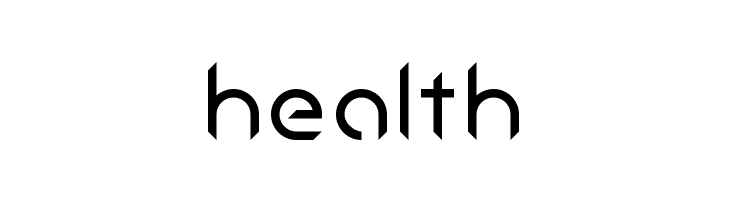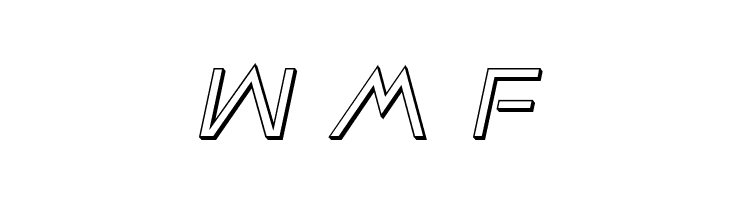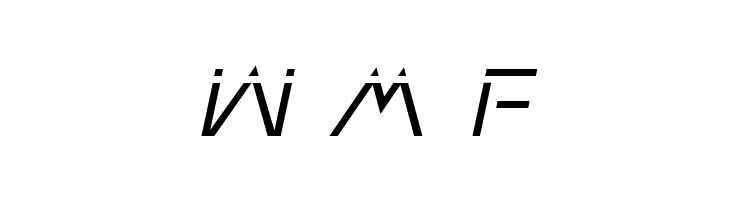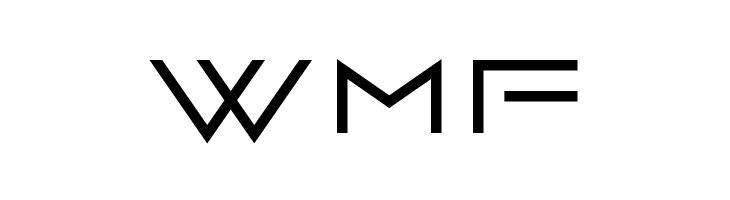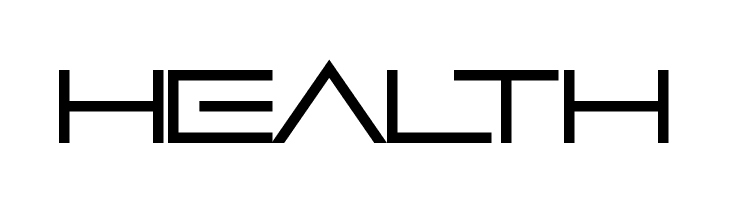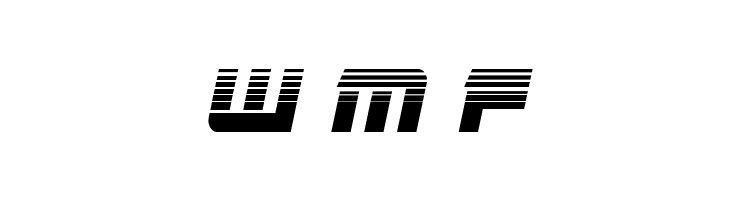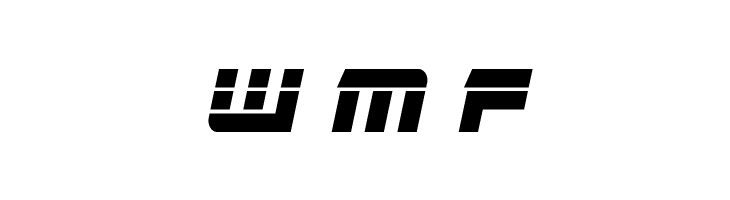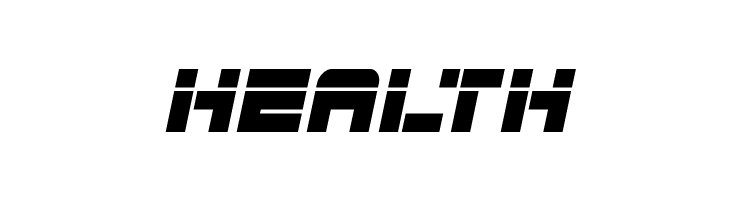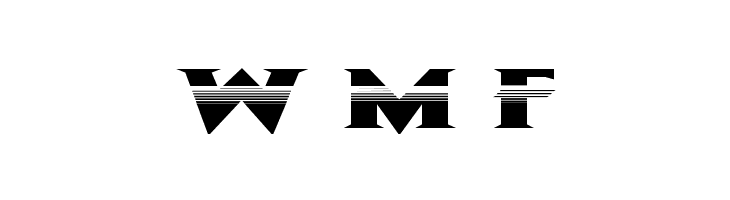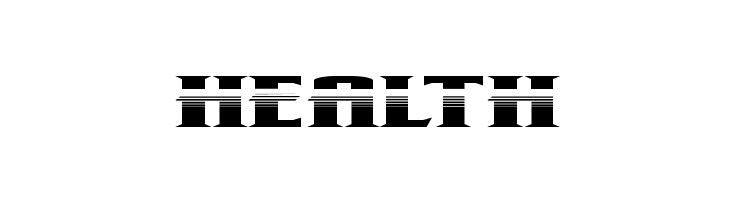
A futuristic and geometric font with sharp angles and clean lines.
A futuristic, italicized 3D font with a sleek, outlined design.
A futuristic, italicized font with sharp, angular letterforms and a sci-fi aesthetic.
A bold, striped font with a modern and dynamic appearance.
A bold, striped serif font with a modern, industrial aesthetic.
A bold, italicized font with a futuristic halftone effect and geometric shapes.
A bold, italicized font with a futuristic and dynamic design.
A bold, halftone-effect font with a modern and dynamic style.
A futuristic, geometric font with rounded edges and a sleek design.